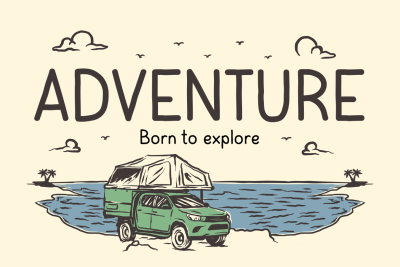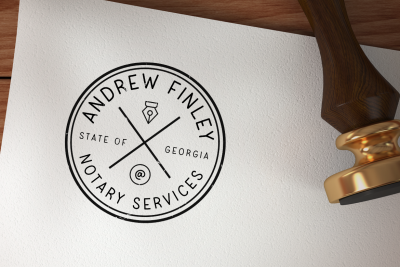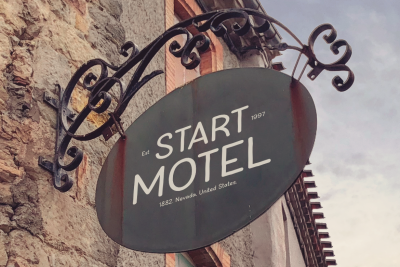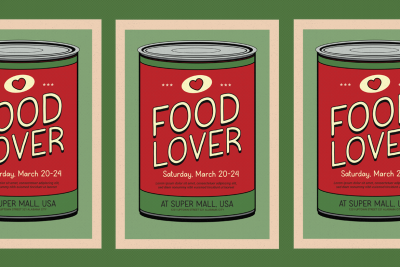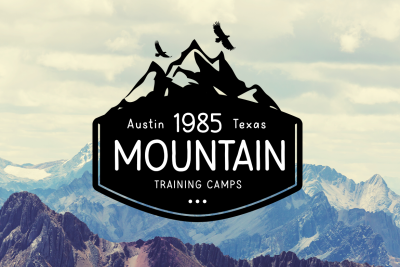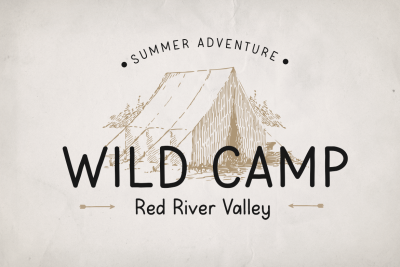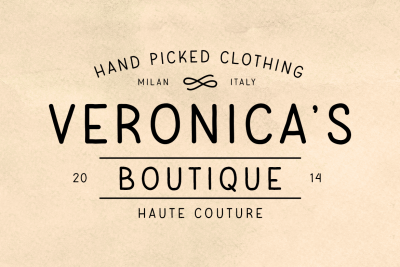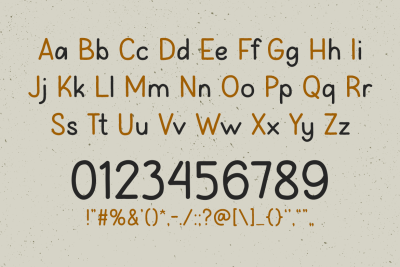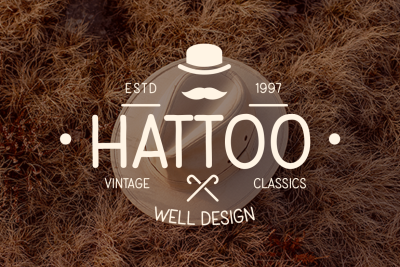
Handwriting Font Harrison is an elegant handwritten font that combines modern creativity with natural charm. Its flowing strokes create a warm and inviting look, making it perfect for designs that aim to feel personal and authentic. Moreover, its simple yet charming design works across a variety of applications. For instance, you can use it for branding, logos, invitations, or even digital content. The font balances beauty with readability while also adding a handcrafted touch to your work.
In addition, the versatile design ensures it adapts easily to different styles. Handwriting Font Harrison suits minimalist layouts, as well as bold and dynamic compositions. Furthermore, its subtle letterform variations mimic real handwriting. This gives your designs a human touch and helps connect emotionally with your audience. As a result, the font elevates your projectโs impact while keeping the style approachable and genuine.
Handwriting Font Harrison Who is it Suitable For?
Handwriting Font Harrison is ideal for designers, marketers, and creators who aim to add elegance to their work. For example, it enhances logos, branding materials, and promotional designs. Luxury brands and artisanal businesses, in particular, can use it to highlight sophistication and authenticity. Additionally, the font works well for influencers on platforms like Instagram, Pinterest, and YouTube. Its style enhances social media posts, captions, and thumbnails, offering a clean yet professional look.
Furthermore, wedding planners and event coordinators will find it especially useful. Itโs perfect for invitations, place cards, and event signage. Its graceful strokes convey romance and sophistication, which makes it ideal for formal celebrations like weddings and anniversaries. Entrepreneurs in stationery or home dรฉcor can also use this font to add a polished, handmade look to their product designs.
Lastly, educational publishers can benefit from its approachable style. For example, it works well in childrenโs books, worksheets, or casual publications. Not only does the font keep content relatable, but it also ensures readability for diverse audiences.
In conclusion, Handwriting Font Harrison is a timeless and versatile font. It adapts to both professional and personal projects alike. Whether you use it for branding, heartfelt invitations, or digital content, its balance of elegance and functionality makes it a must-have for creatives in all fields.